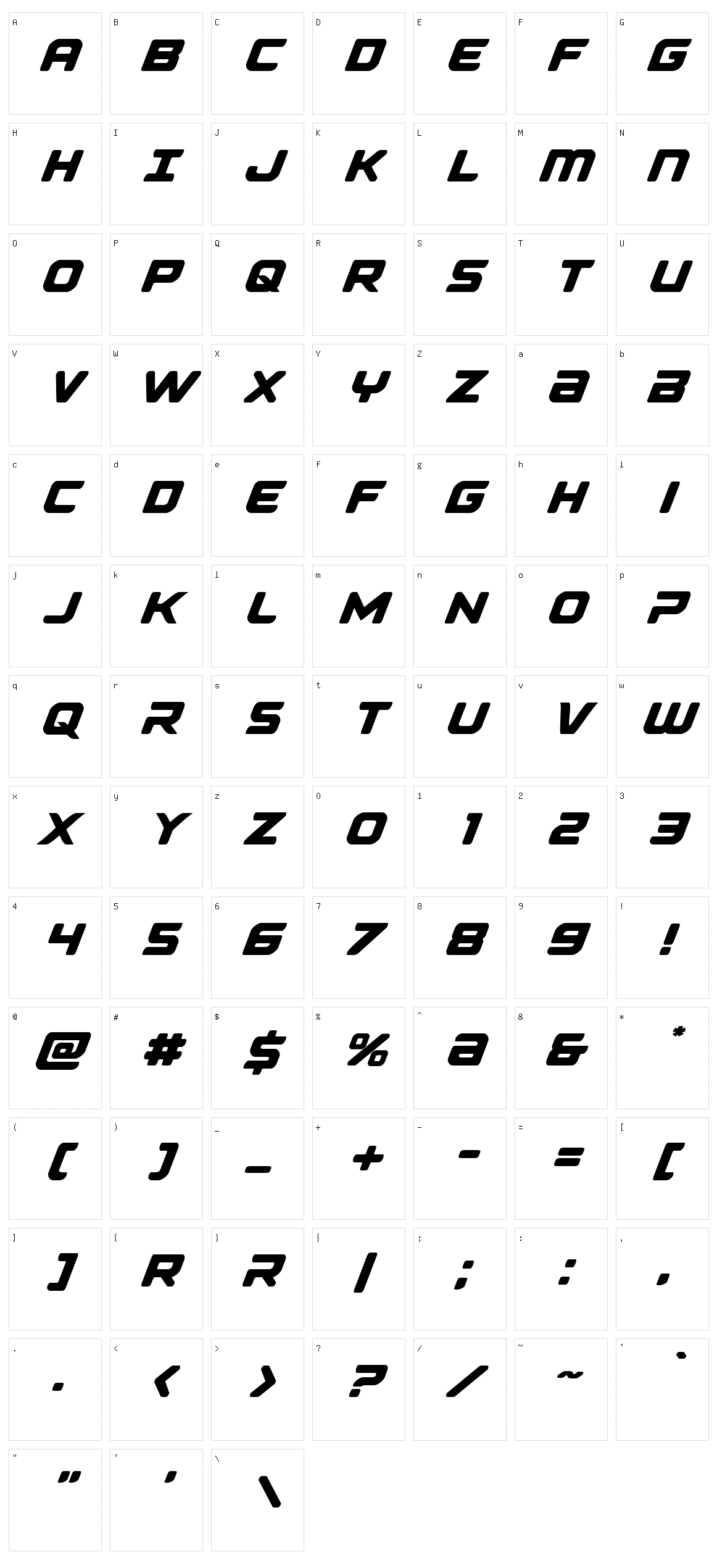
Falcon Punch
Description: The free font Falcon Punch is carefully designed by Iconian Fonts, showcasing a thoughtful balance of creativity and usability and belongs to the Techno font family. When you download the ZIP file, it contains only 349.74 KB of font files, making it lightweight and quick to download. Please review the license details below to understand permitted usage and distribution rights. If license information is not available, we recommend using this font for personal projects only or contacting the author directly for commercial usage permissions.
This font comes with the following 10 versions: Regular, Italic, Condensed, Expanded, 3D, Outline, Laser, Halftone, Gradient and Straight.